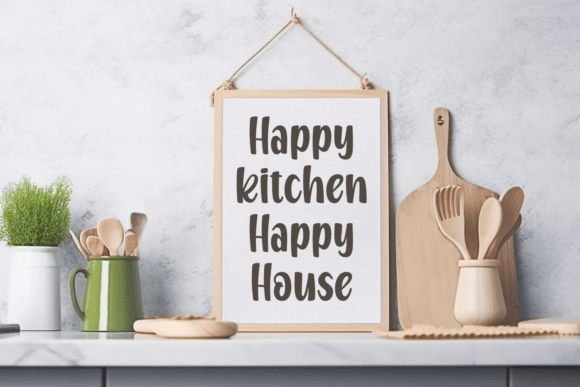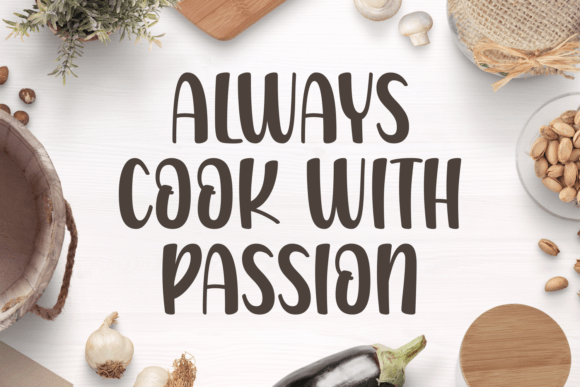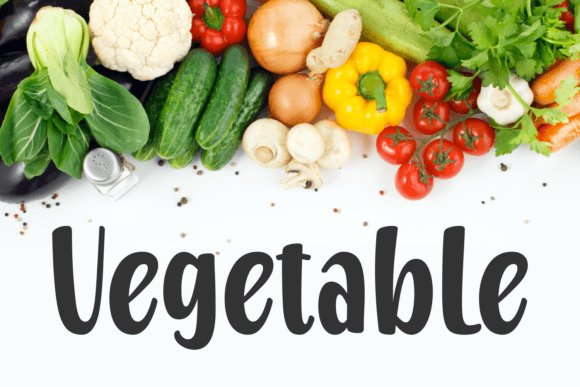
Introduction to Mommy Kitchen Font
As I sat in my cozy home office, surrounded by scraps of paper, paint, and glue, I stumbled upon the perfect font to elevate my latest creative project – the Mommy Kitchen Font. Its friendly and lovely style instantly captured my attention, and I couldn’t wait to see how it would bring my DIY project to life.
With the Mommy Kitchen Font, designers can add a personal touch to their work, whether it’s a child’s birthday party invitation or a blog post about motherhood. This high-quality design resource is perfect for those seeking a friendly and approachable vibe in their creative projects. And the best part? It’s available for free download, making it an excellent addition to any designer’s library.
As a valuable resource for designers, the Mommy Kitchen Font offers a transparent background, making it easy to use in various design contexts. Whether you’re working on a wedding invitation, a children’s book, or a social media post, this font is sure to add a warm and inviting touch to your work.
Mommy Kitchen Font Key Features
- Unique, cursive font style with a warm and inviting feel, perfect for Mommy Kitchen or similar themes
- Perfect for crafting, scrapbooking, or any other creative project where a warm and feminine touch is needed
Honest Review: Mommy Kitchen Font
I recently came across the Mommy Kitchen Font while searching for a free download to use in a creative project. I was excited to see that it offered a high-quality design resource that could add a personal touch to my work. As a designer, I appreciate fonts that are both visually appealing and versatile.
Here are some things that work well with the Mommy Kitchen Font:
- ✨ Unique and playful style that’s perfect for a mommy-themed project or any design that needs a touch of whimsy.
- ✨ High-quality design that’s clear and easy to read, even in smaller font sizes.
- ✨ Transparent background, making it easy to layer over images or other design elements.
- ⚠️ Limited character set, which may not be ideal for projects that require a wide range of characters.
- ⚠️ Not all weights and styles are available in the free download, which may limit its versatility.
Overall, I’m impressed with the Mommy Kitchen Font. While it may have some limitations, its unique style and high-quality design make it a valuable addition to any designer’s toolkit. I’d definitely recommend it for creative projects that require a playful touch.
Introduction to Mommy Kitchen Font
The Mommy Kitchen Font is a high-quality design resource perfect for creative projects. It’s available for free download and features a transparent background, making it easy to customize and integrate into your design.
Tips for Getting the Most Out of Mommy Kitchen Font
To get the most out of Mommy Kitchen Font, experiment with different font sizes, colors, and combinations to find the perfect look for your design. You can also use the font in conjunction with other design elements to create a unique and eye-catching design.
Common Use Cases for Mommy Kitchen Font
The Mommy Kitchen Font is perfect for a variety of creative projects, including social media graphics, invitations, and blog posts. It’s also great for use in business cards, brochures, and other marketing materials.
Yes, Mommy Kitchen Font is designed to meet high standards of quality and legibility. Its clean and modern design makes it perfect for a variety of creative projects, from print materials to digital interfaces. The font’s high quality ensures that it will look great in any context.
Q: Does Mommy Kitchen Font have a transparent background?
Yes, Mommy Kitchen Font has a transparent background, making it easy to layer over other design elements or use as a standalone design resource. This feature allows for greater flexibility and creativity in your design projects.